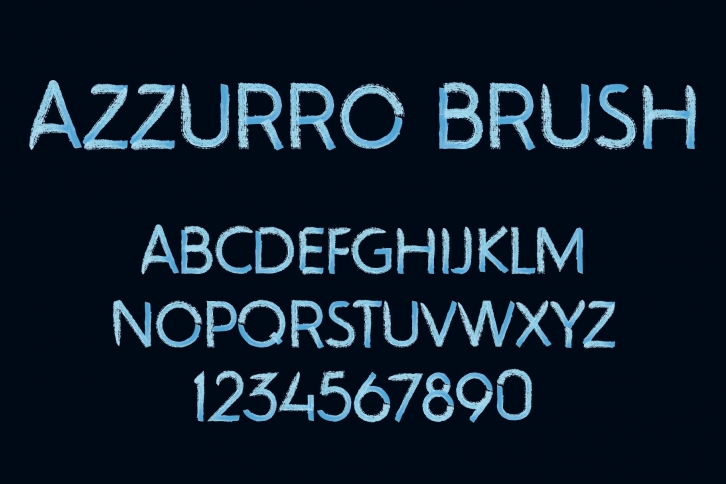
Azzurro SVG is a great font that was designed by ampersand. Imagine the amount of combinations you can create using this font! The archive is 13.38 MB and it was released on July 2, 2020. Azzurro SVG looks beautiful on wedding invitations, greeting cards, logos, posters, labels, t-shirt designs, logos, business cards and is perfect for use in ink or watercolor works, fashion, magazines, packaging and food menus, children's books and more!